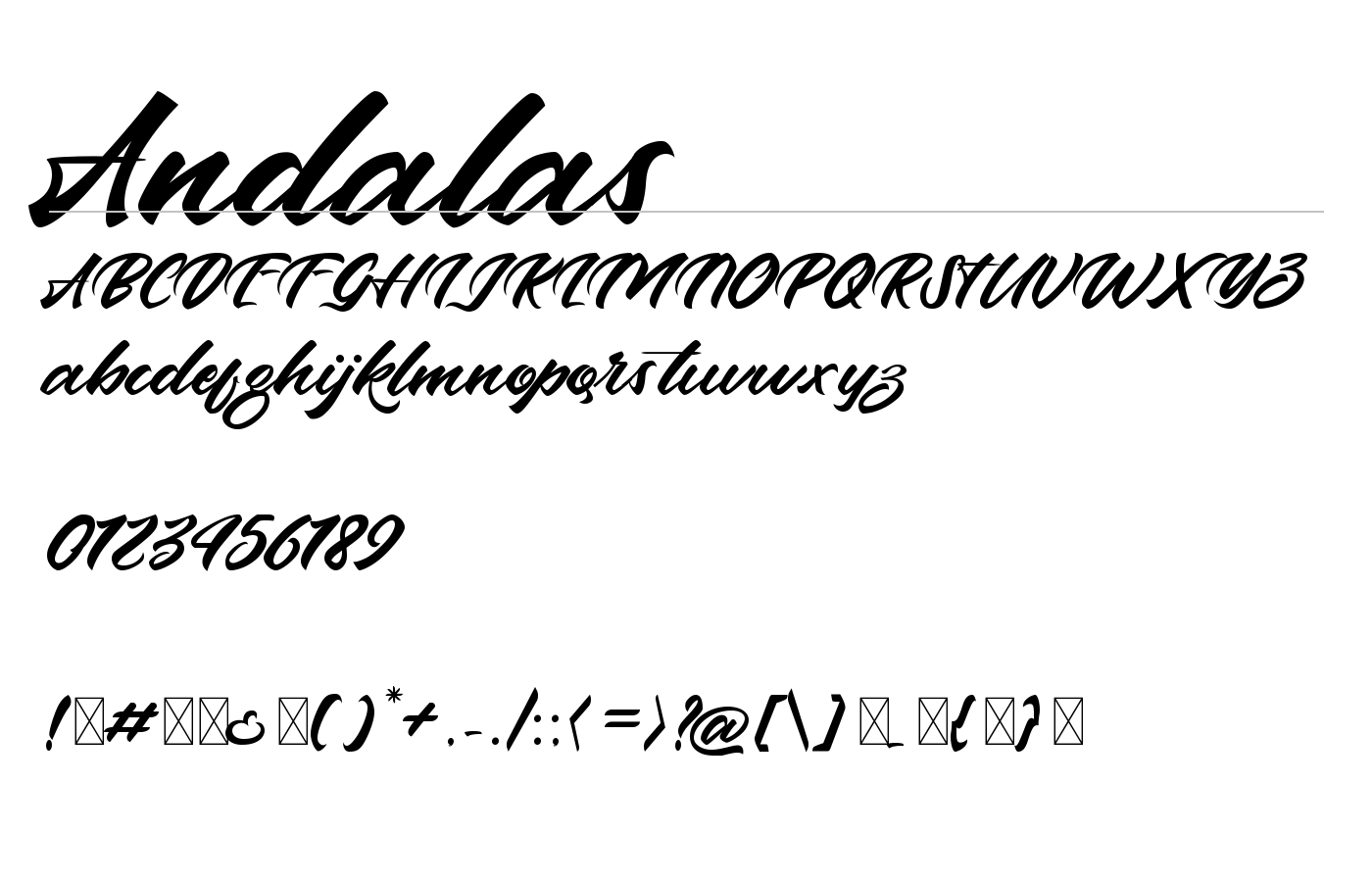
Andalas is an elegant script font with a fluid, calligraphic style that combines smooth curves and a dynamic slant, giving it a lively yet refined personality. Its medium weight and balanced stroke contrast make it great for invitations, logos, and headings where a stylish, handcrafted touch is desired. This font works best in designs that want to convey sophistication and warmth, such as fashion branding, luxury packaging, and editorial features.
Andalas Font
About Andalas Font
| Font family | Andalas Font |
| Designer | Typotopia |